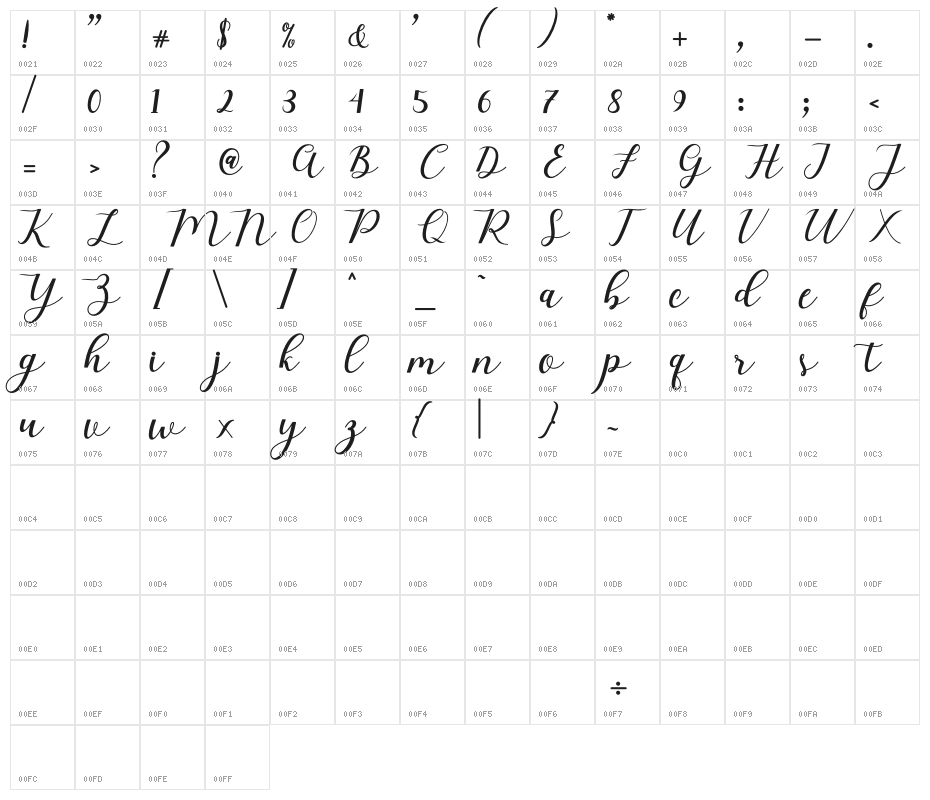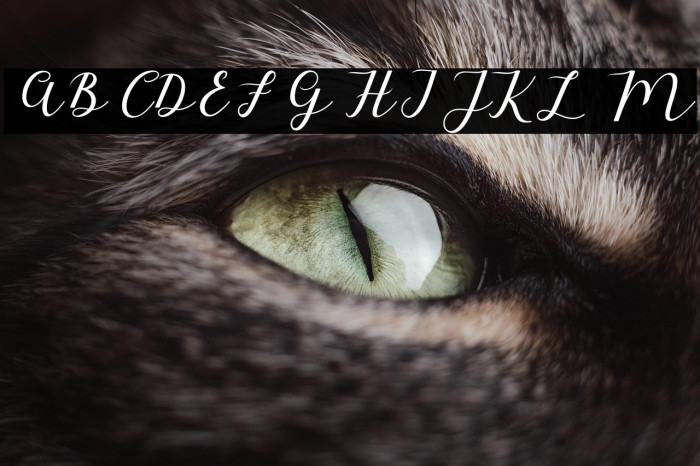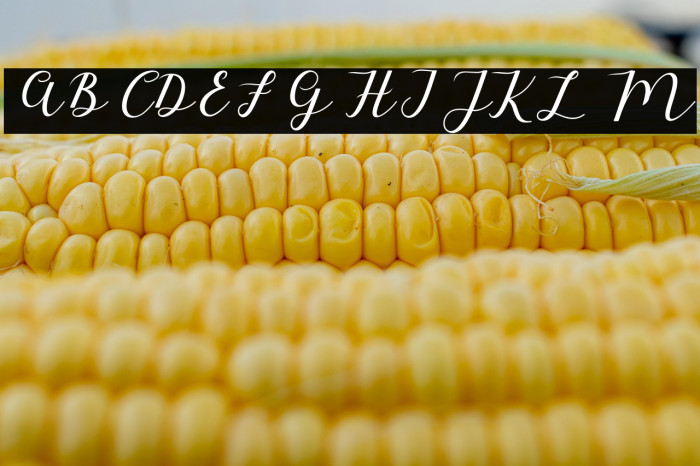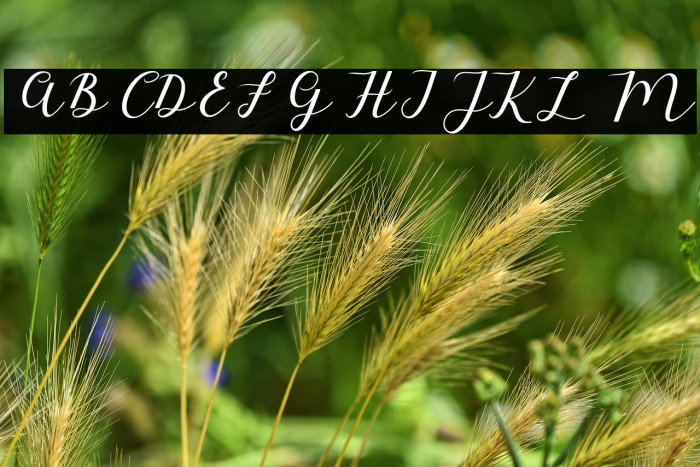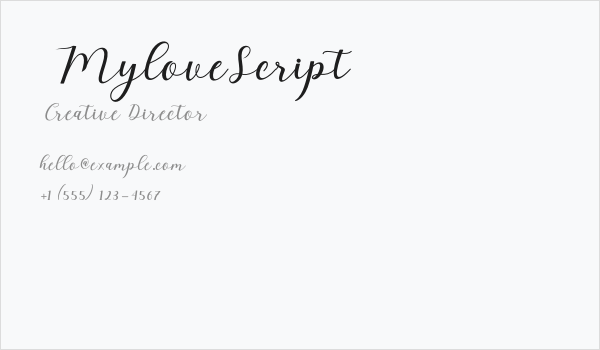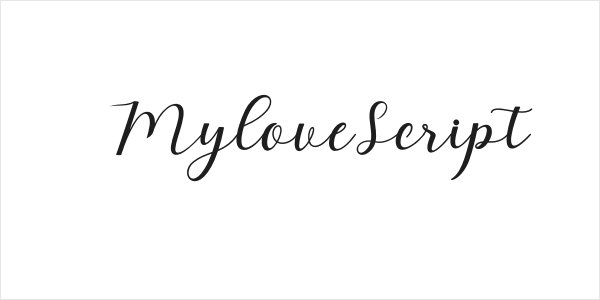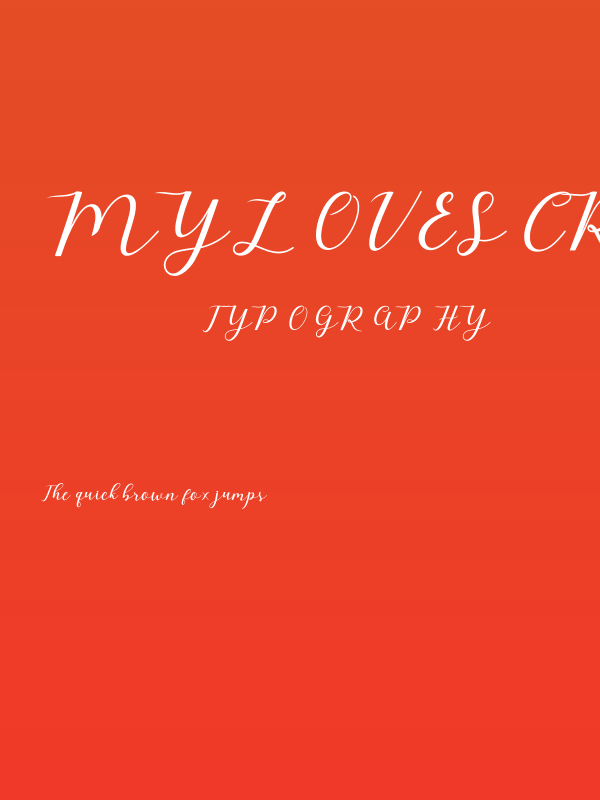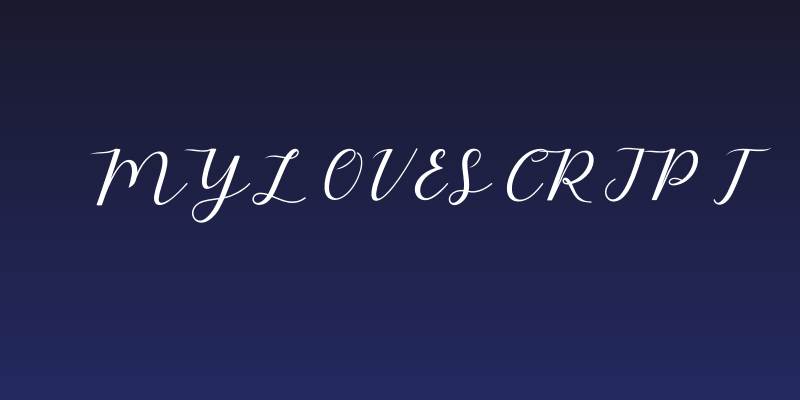
MyloveScript Font
MyloveScript Description
This elegant script font features flowing, cursive letters with a classic and romantic feel. The uppercase letters are gracefully connected, while the lowercase letters exhibit a smooth, continuous stroke that enhances readability. The numerals are stylishly curved, maintaining the font's overall fluidity. Special characters are designed with the same attention to detail, ensuring a cohesive look across all elements. The font's delicate lines and artistic flair make it ideal for projects that require a touch of sophistication and charm.
| Proposed Projects | Ideal for wedding invitations, greeting cards, branding, and elegant logo designs. |